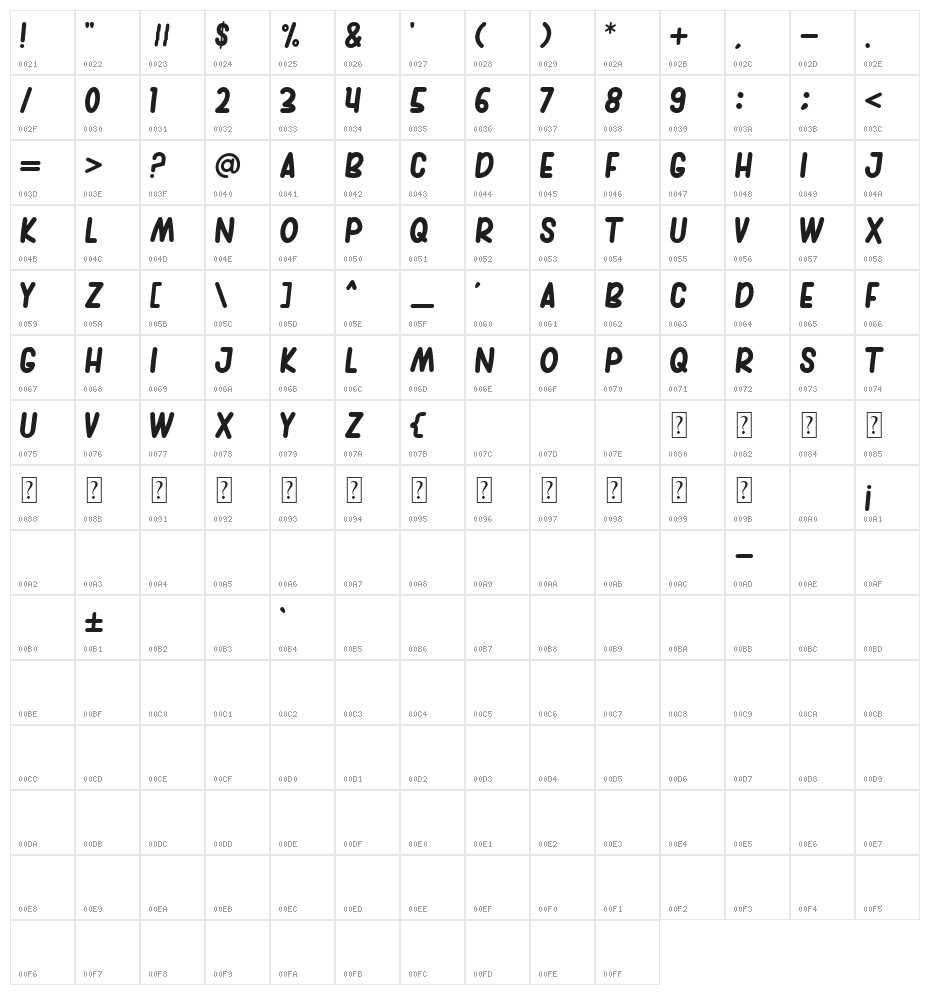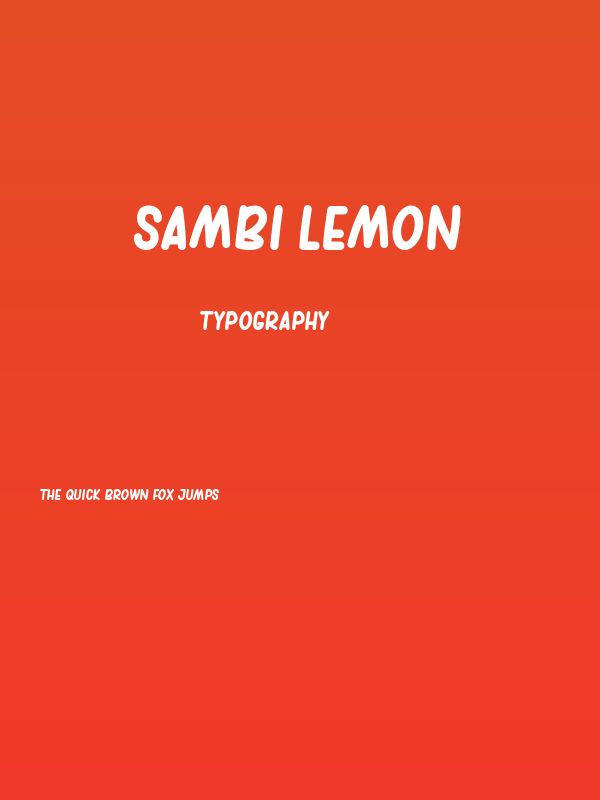
sambi lemon Font
sambi lemon Description
This font features a playful and bold style with rounded edges and a slightly slanted orientation, giving it a dynamic and energetic appearance. The characters are thick and robust, making them highly legible and suitable for attention-grabbing designs. The uppercase and lowercase letters maintain a consistent style, with a slight variation in size and shape that adds to the font's charm. The numerals and special characters are equally bold and rounded, ensuring a cohesive look across all text elements. This font's unique style makes it ideal for projects that require a fun and informal touch.
| Proposed Projects | Ideal for children's books, playful branding, posters, and social media graphics. |